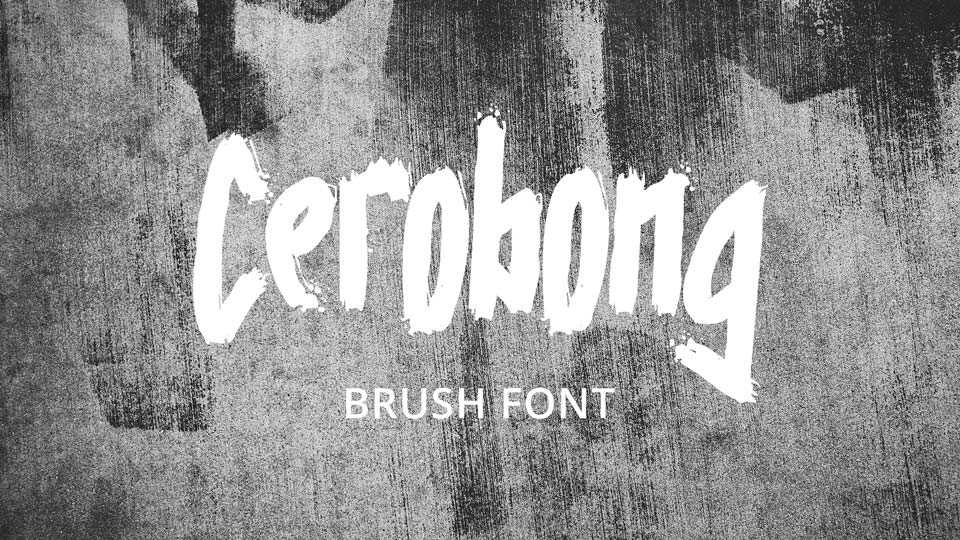
Download Cerobong font a grungy hand painted brush script. Cerobong font fits great for street style designs, posters, headlines, apparel and other artworks.